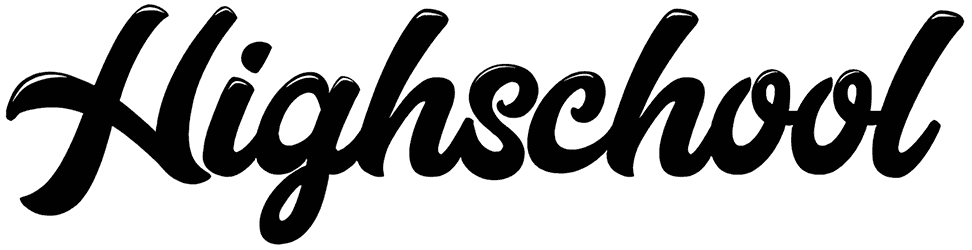
Highschool Font
A baseball font, such as Highschool, with elongated and rounded edges, would spark the interest in the audience’s minds, so first of all, don’t hesitate anymore and utilize it in your artwork, then take a look at our library to find a vast variety of majestic fonts.
If you want to establish a sense of personalization, dynamism, and innovation in the posters, logos, flyers, and brandings, Highschool can meet your demands.